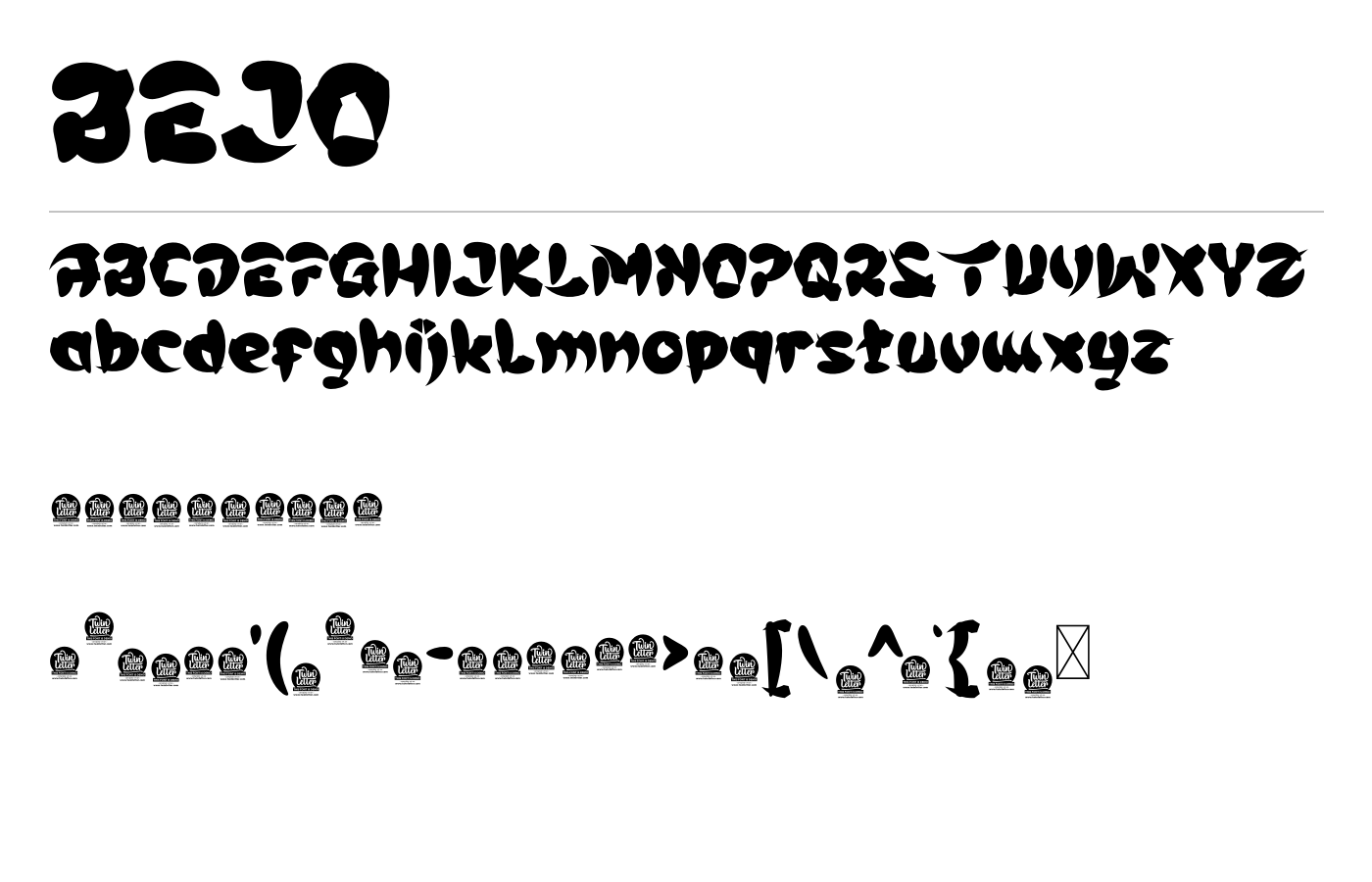
BEJO is a bold, playful script-style font characterized by thick, irregular strokes that create a hand-painted, casual feel. Its unique, rounded letterforms with noticeable weight variation and energetic contours make it perfect for fun, creative branding, posters, and headlines seeking a lively, informal personality. This font stands out with its artistic charm, ideal for projects aiming to convey warmth and originality.
BEJO Font
About BEJO Font
| Font family | BEJO Font |
| Designer | Murozakul Akhsan |